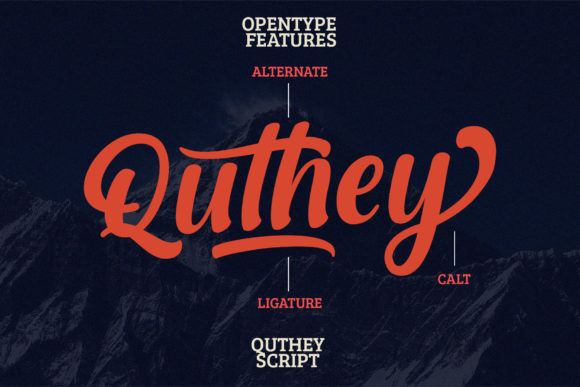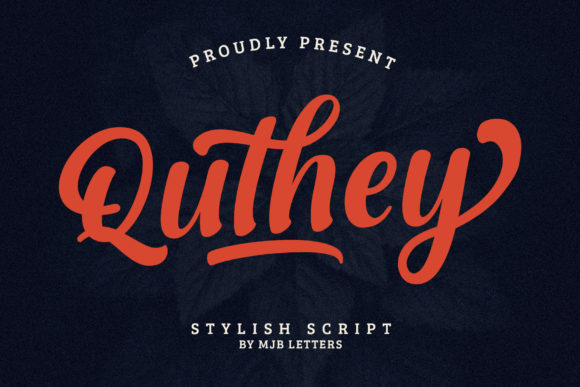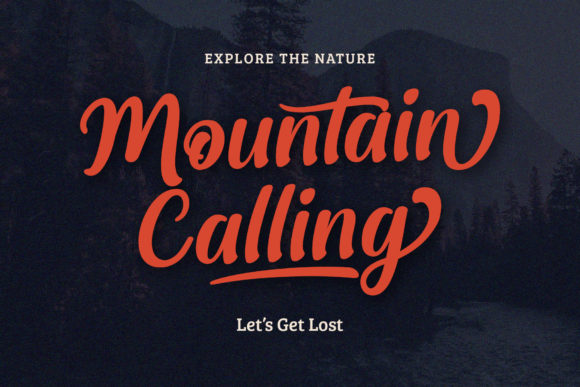
Quthey is a gorgeous, retro styled and bold handwritten font, crafted to give your headlines and logotype projects a stylish touch. This font reads as strong, confident, and dynamic and can add tons of nostalgic character to your designs.